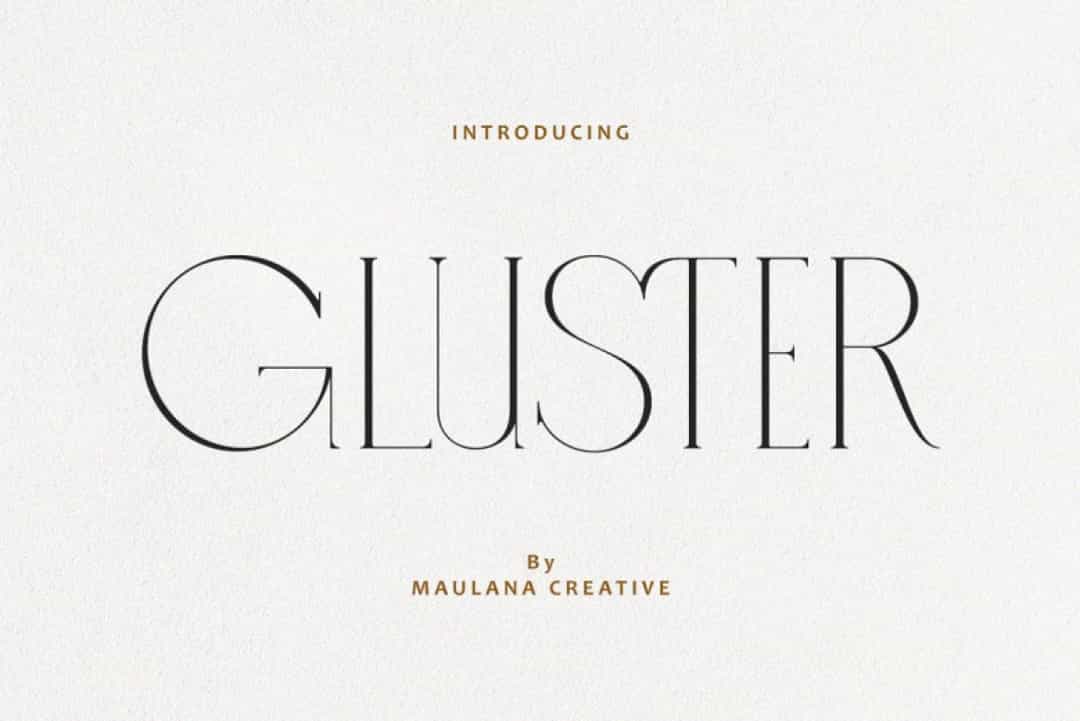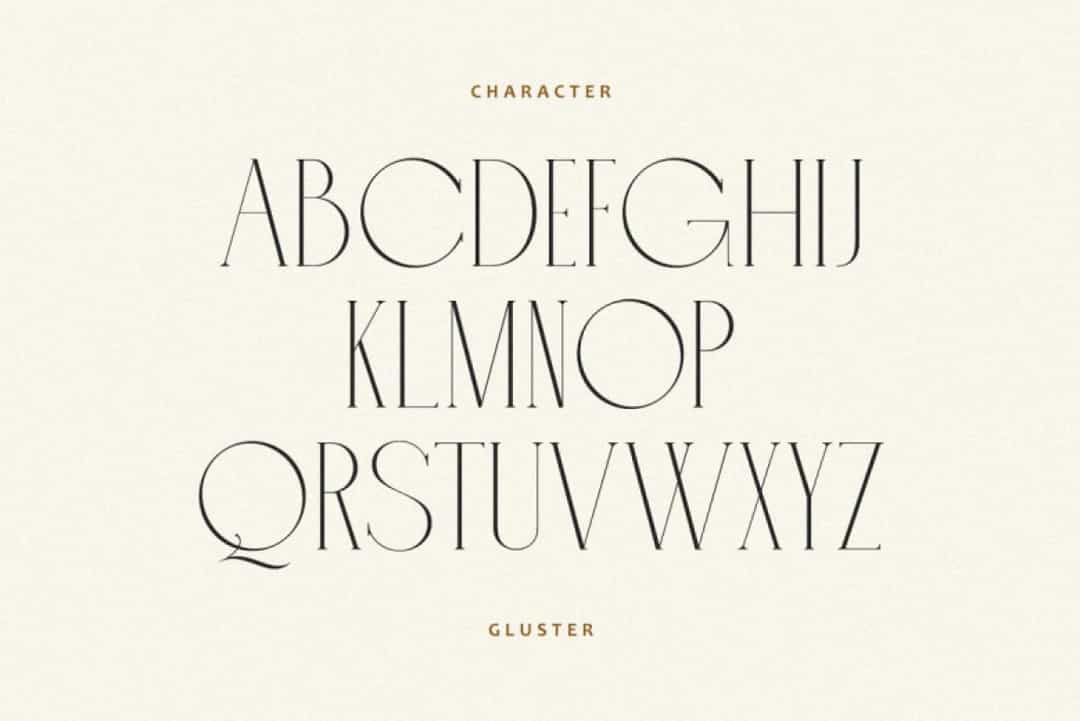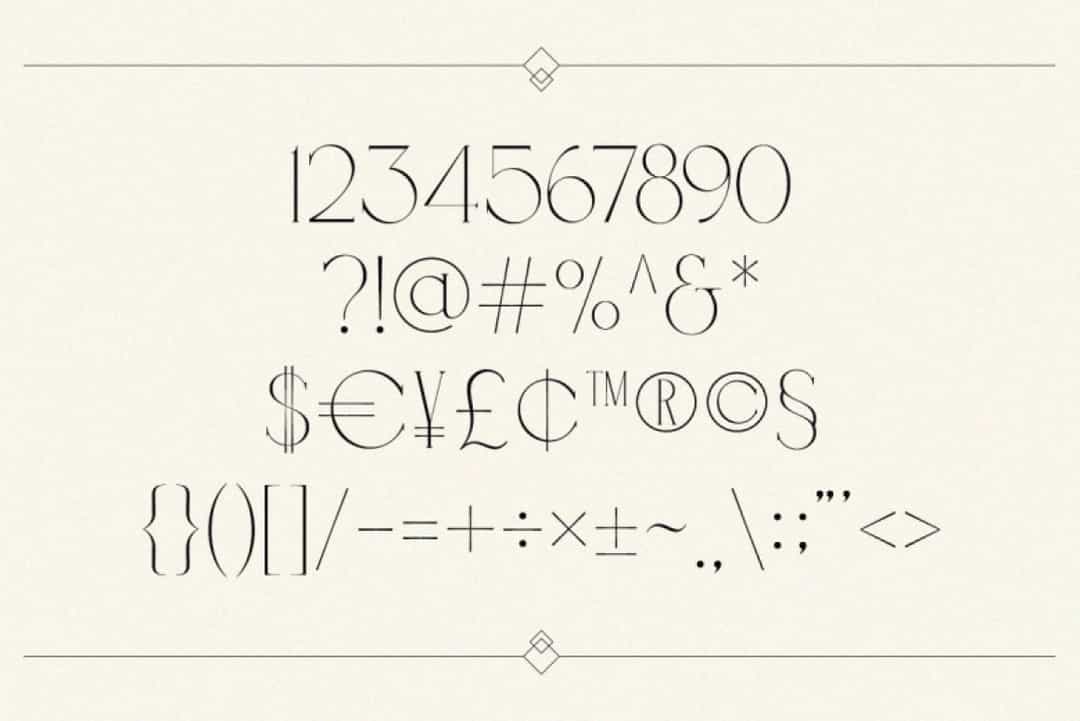
Gluster is an elegant serif typeface with slim high and tall serif characters. Be enchanted by its captivating design to make breathtaking wedding invitations, stunning stationary items, captivating tweets on social networks and many other applications!